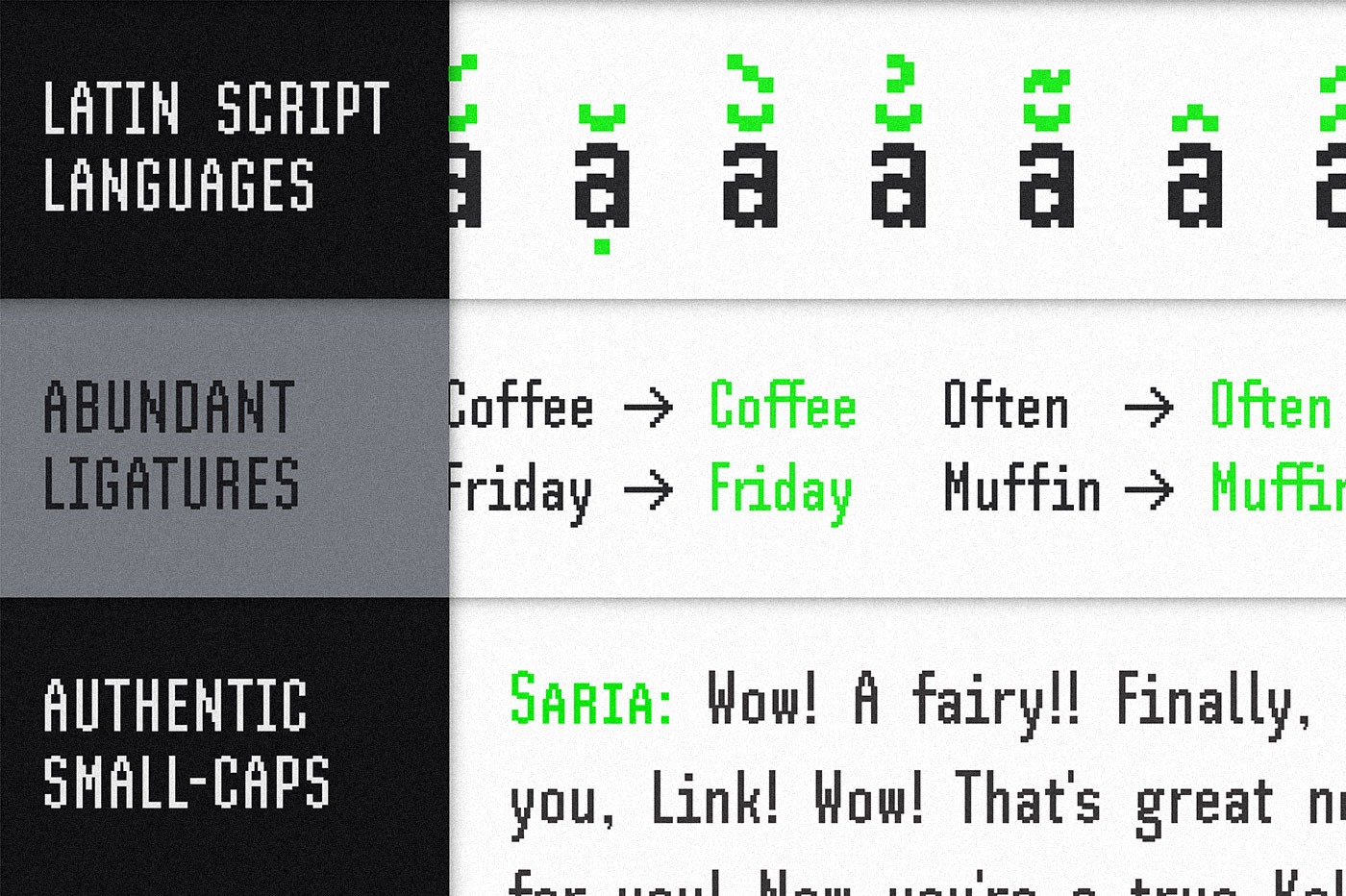
Pinscher Font . You can download the sh pinscher font to your computer or use it on your website.  sh pinscher font family designed by tinghao hu has a total of 1 different styles. This beast is a bit more.  just like a doberman pinscher, sh pinscher free font is slim, elegant, focused, fun, and designed to kill all at the same time. Bold , narrow , pixel , bitmap , retro , a. Download free for commercial use.   just like a doberman pinscher, sh pinscher is slim, elegant, focused, fun, and designed to kill all at the same time. Please research the license information before. Consider your download a beta version, and expect. Note:this is a continuous project. This beast is a bit more. Free for personal, charity, commercial uses.
Download free for commercial use.  just like a doberman pinscher, sh pinscher free font is slim, elegant, focused, fun, and designed to kill all at the same time.   just like a doberman pinscher, sh pinscher is slim, elegant, focused, fun, and designed to kill all at the same time.  sh pinscher font family designed by tinghao hu has a total of 1 different styles. Please research the license information before. Bold , narrow , pixel , bitmap , retro , a. Free for personal, charity, commercial uses. Consider your download a beta version, and expect. This beast is a bit more. Note:this is a continuous project.